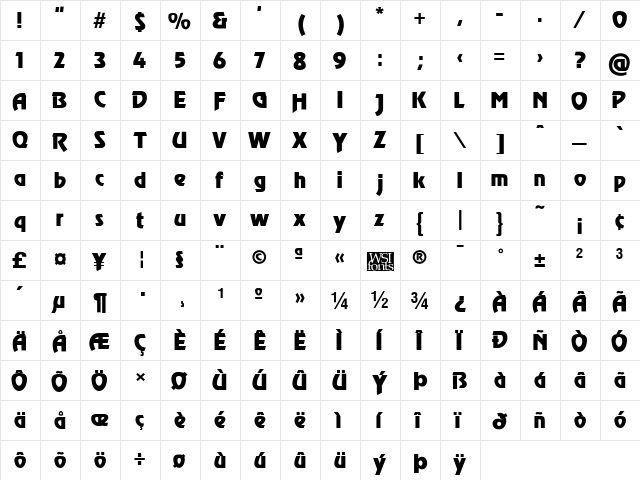
RevelRegular Regular
Design Context for RevelRegular Typeface
RevelRegular is a composed and adaptable typeface that performs quietly and consistently across a wide range of design contexts.